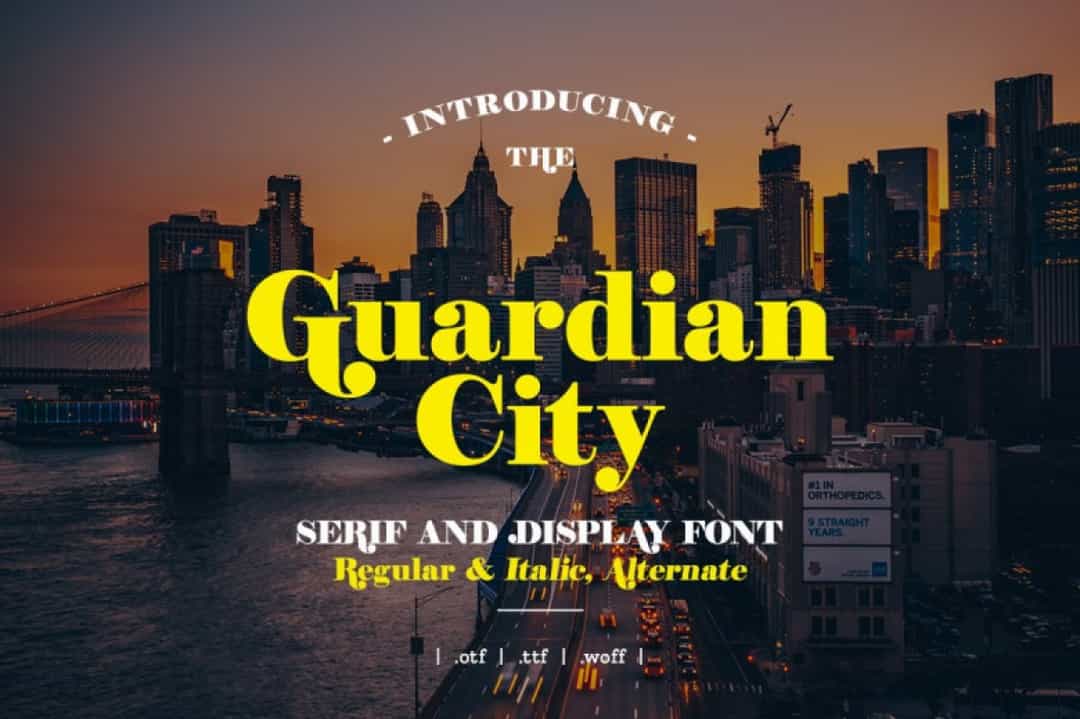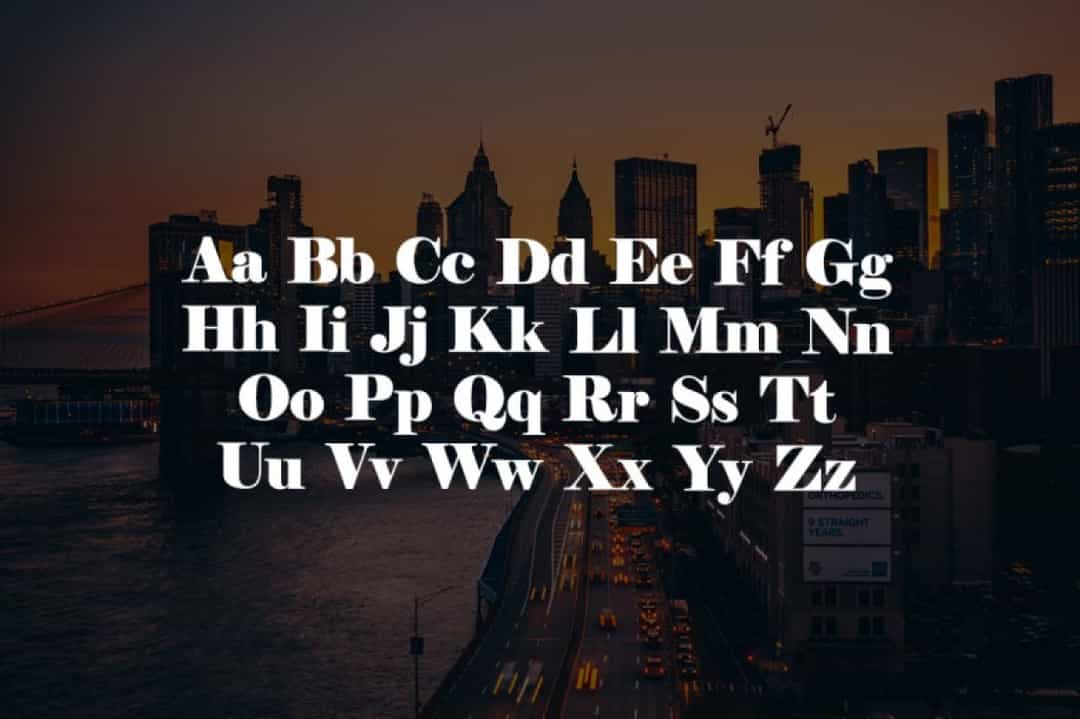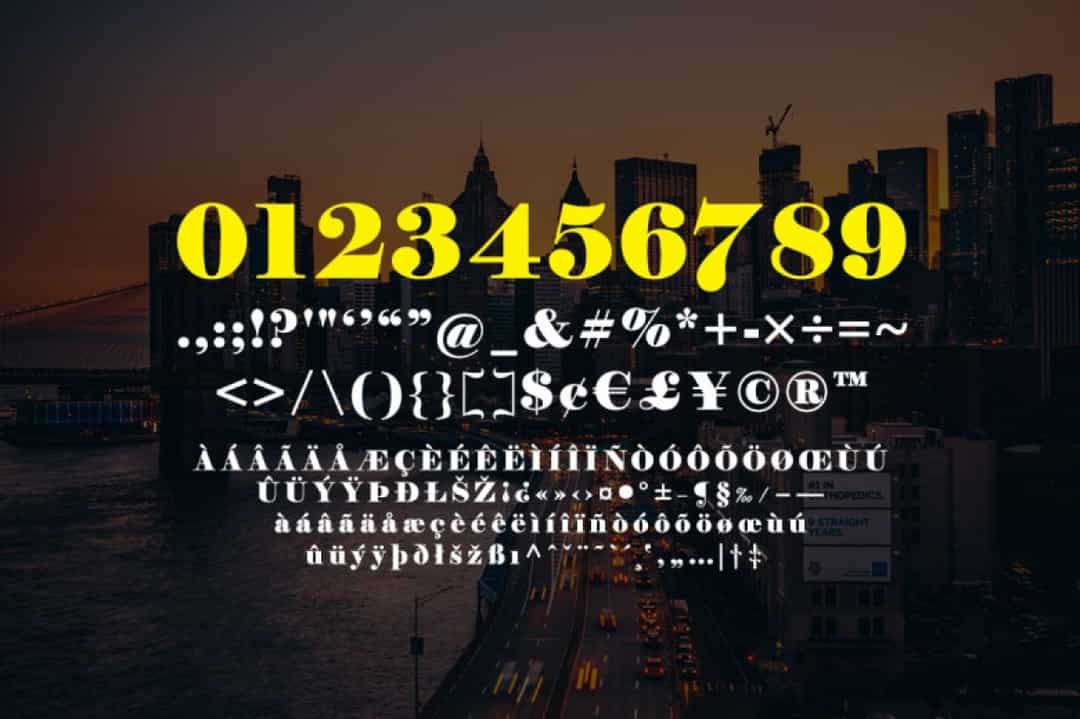
Discover Guardian City Font, part of the Serif Display collection—a versatile and unique font perfect for adding a personal touch to your projects. Download it for free and enjoy crafting designs with style, from invitations to social media posts. This font is available exclusively for personal use, giving you the freedom to create without limits. Unlock your creativity with Guardian City Font today!
Guardian City Serif font is perfect for posters, music covers, logo t-shirt design projects and numerous creative design endeavors. Available as both lowercase and uppercase text fonts (both international and numeric characters are supported), and regular and Italic varieties; download it today to keep abreast of new and exclusive font releases in store!